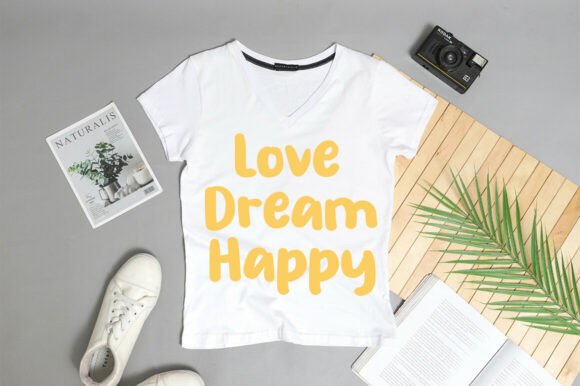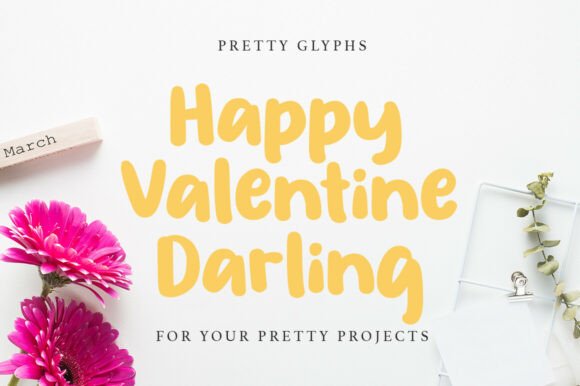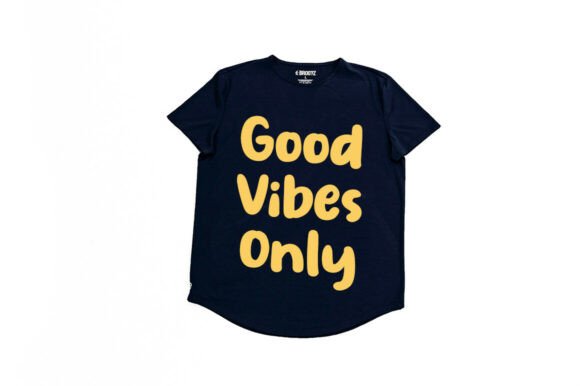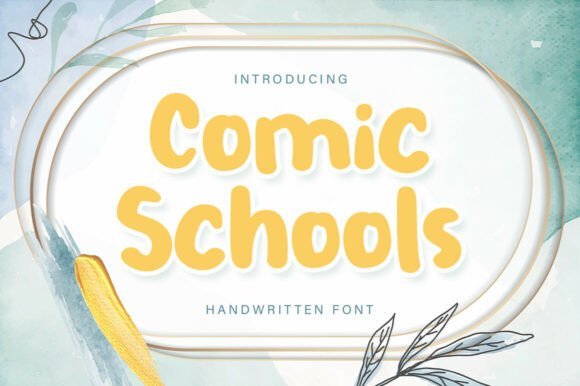
Introduction to Comic Schools Font
Introduce a sense of intimacy, character, and a genuine human essence into your creations using this magnificent handwritten font.
Fashioned to mirror authenticity and emotiveness, each letter cascades naturally, mirroring the fluidity of real ink on paper With its slightly uneven strokes, silky curves, and innate rhythm, your text transitions into an appealing, fashionable, and approachable visual journey.
Why Choose Comic Schools Font?
Comic Schools Font offers exceptional quality and versatility, making it a valuable addition to your design toolkit. Whether you’re creating for personal projects or commercial use, Comic Schools Font delivers professional results.